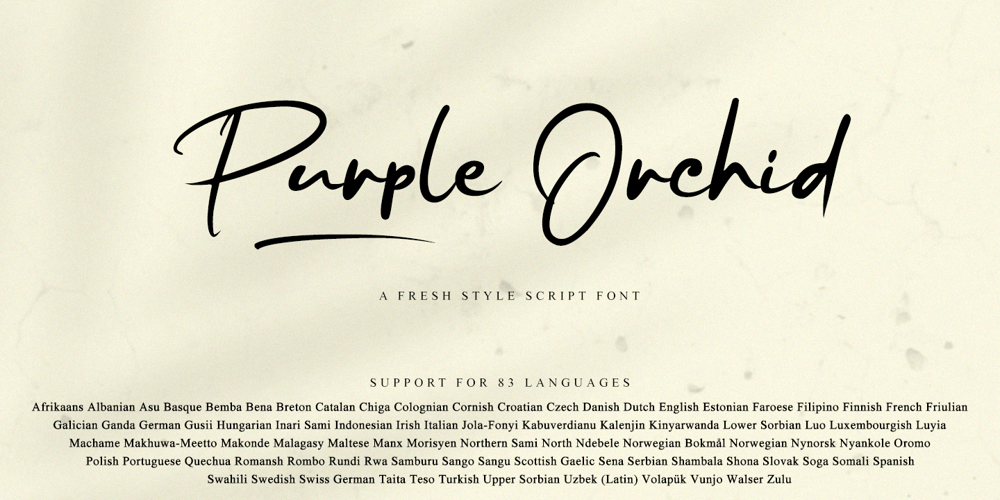
Purple Orchid Font Family was designed by Gie Studio and published by Gie Studio. Purple Orchid contains 1 styles and family package options. Are you planning to do an amazing piece of work to make lots of people smile happily while taking your hat off every time?If so, this is the right time to give your work a little touch with a sincere and elegant writing.Introducing Purple Orchid – A Fresh Style Script FontPurple Orchid is a natural handwritten font with a modern signature style and elegant. This font is perfect for you to use for creating handwritten-style logos, wedding stationery, photographer watermarks logos, modern websites, fashion branding, name card, wedding invitation and all the identity of your business products.Purple Orchid includes Multilingual Options to make your branding globally acceptable 83 Languages.Features: Standard Ligatures Multilingual Support 83 Languages PUA Encoded Numerals and Punctuation Special baseline collection Thank you for your visit and downloading premium fonts from Gie Studio